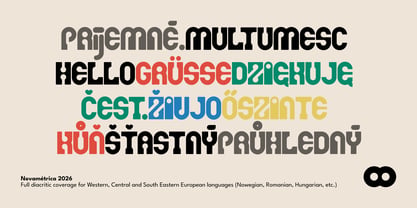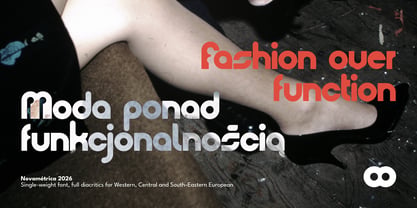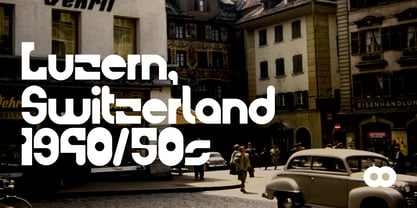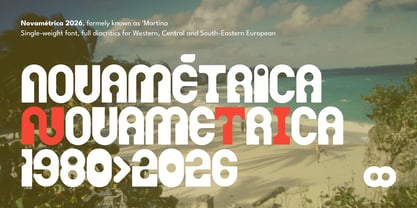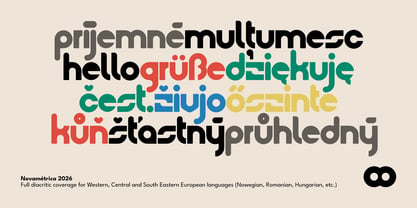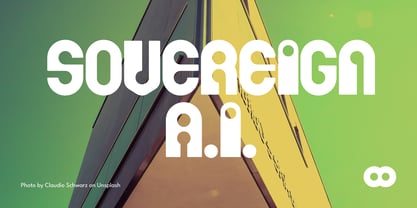
Novametrica
by Contaformas
The Novametrica Font Family was designed by Mario Falaschini, Leonardo Falaschini and published by Contaformas. Novametrica contains 1 styles. More about this family
This single-weight, geometric display typeface strikes a unique balance between brutalist and futuristic aesthetics while maintaining a softer touch. Precision-built from geometric foundations, it subtly evokes the works of Joseph Churchward, diverging from his strict play between form and negative space. Originally conceived on paper in the 2000s as an all-caps font, it was digitised as "Martina". Now rebranded for distinctiveness, it expands its versatility by adding lowercase, diacritics for Western, Central, and South European languages, and many ligatures that visual consistency demands. Ideal for branding, editorial design, and web use, this typeface stands out with its unique character and modern appeal, making it a perfect choice for various design projects.
Contaformas is a family passion project that began as a small retail business in Argentina during the 1970s, originally known as Contaformas SA. Mario, who started as an Olivetti salesman and later owned an IT shop, developed a profound appreciation for vintage computer manuals, drawn to their aesthetic charm, unique character, and especially their typeface design. Two decades later, his son Leonardo studied Design and Illustration, transforming some of his father's lettering into practical yet distinctive typefaces, letting the influences of French Art Deco, Italian Modernism, Bauhaus, and Argentine "Fileteado" (Hand-painted lettering) inform their design choices. Contaformas aims to serve various industries, including editorial, technology, and fashion, setting itself apart with its unique style and meticulous attention to detail. Their first font, the freeware version of the Martina typeface, has been downloaded over 80,000 times since its release and has been featured in magazines and independent films, showcasing their commitment to quality and creativity.